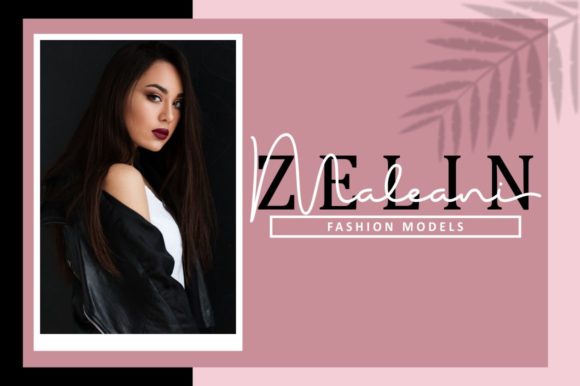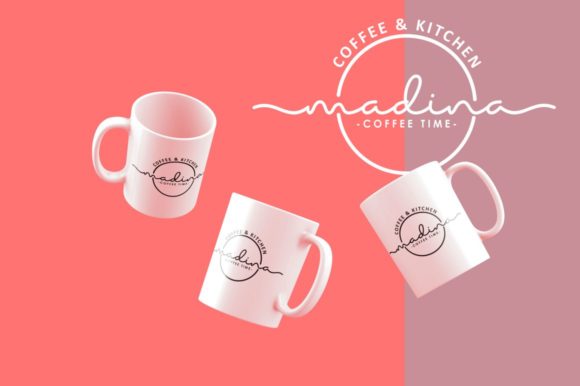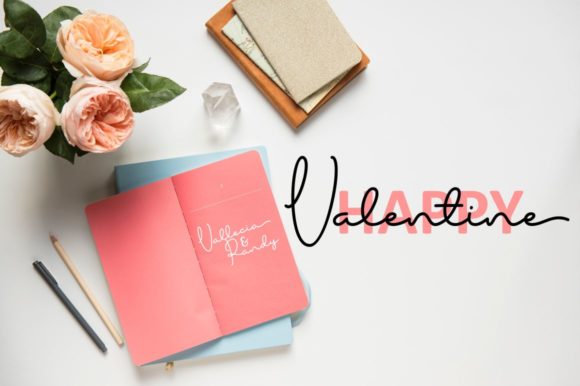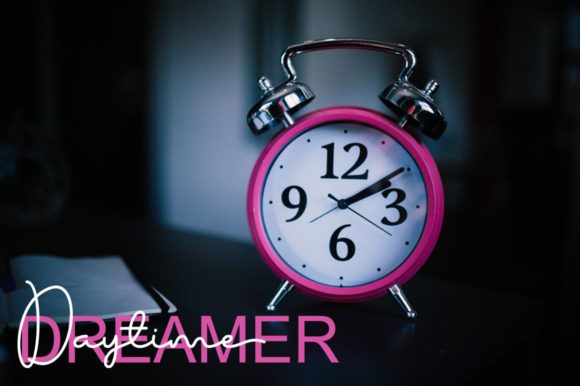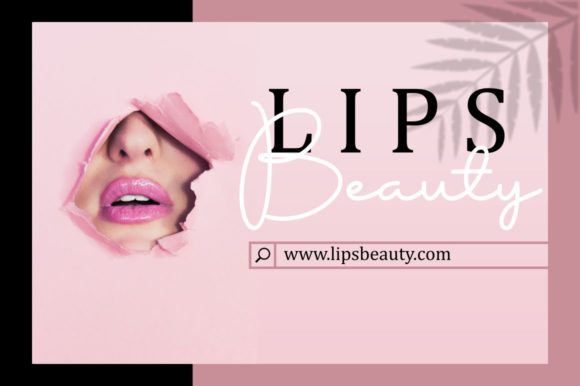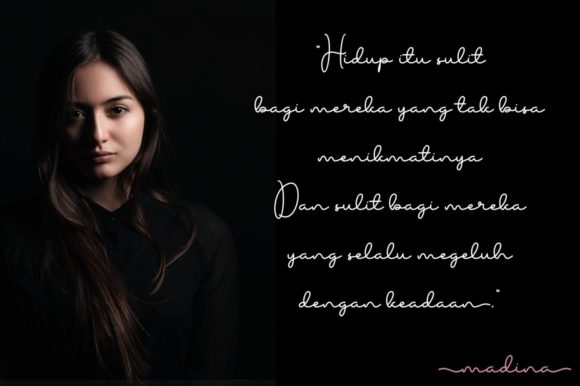
Madina Font
About Madina Font
Madina is a stunning script that features an incredibly casual, yet elegant look.
Fall in love with its authentic feel and use it to create gorgeous wedding invitations, beautiful stationary art, eye-catching social media posts, and cute greeting cards.